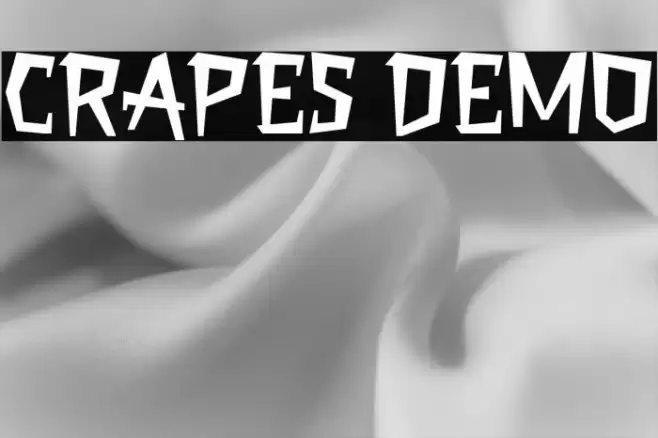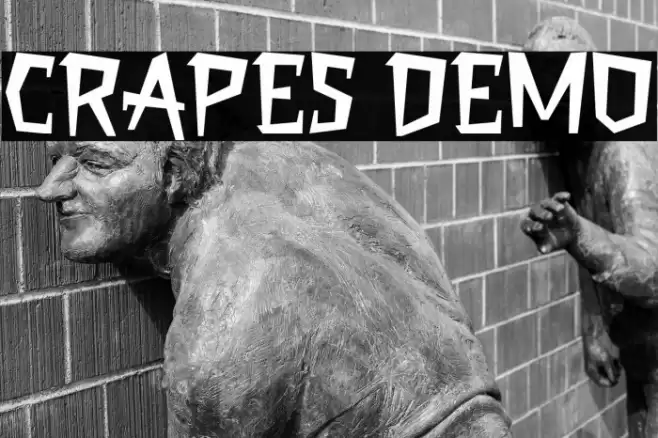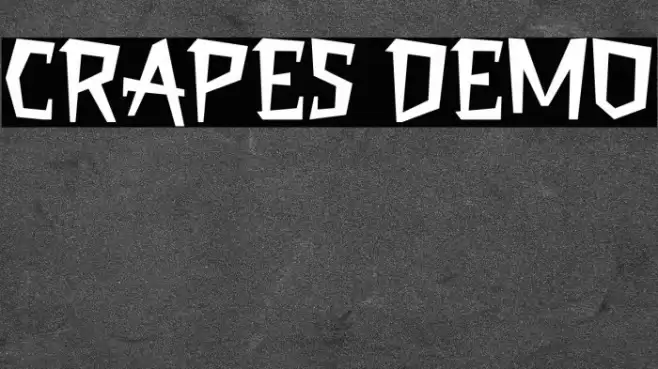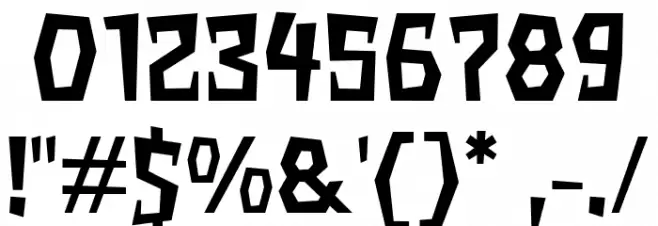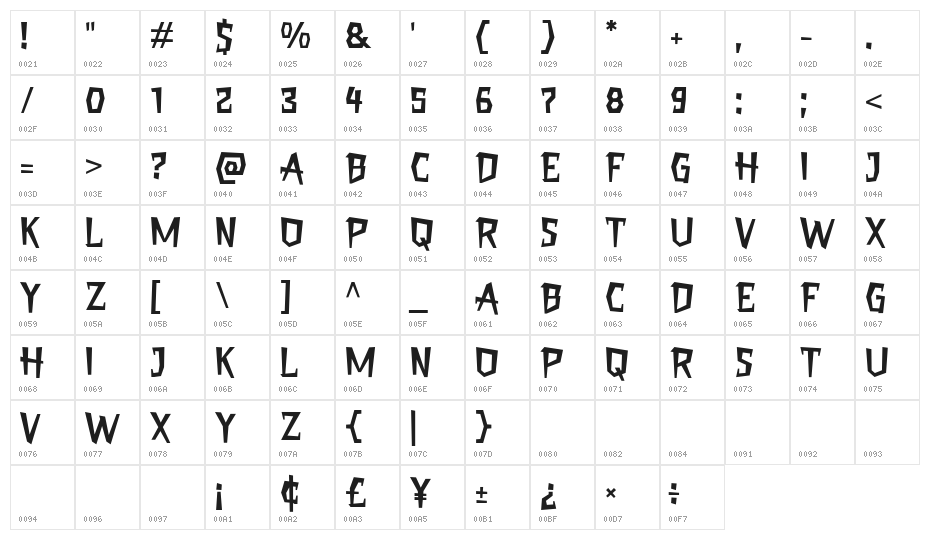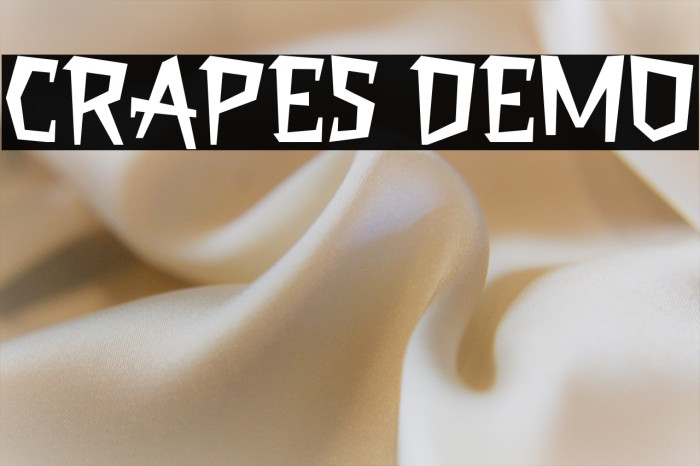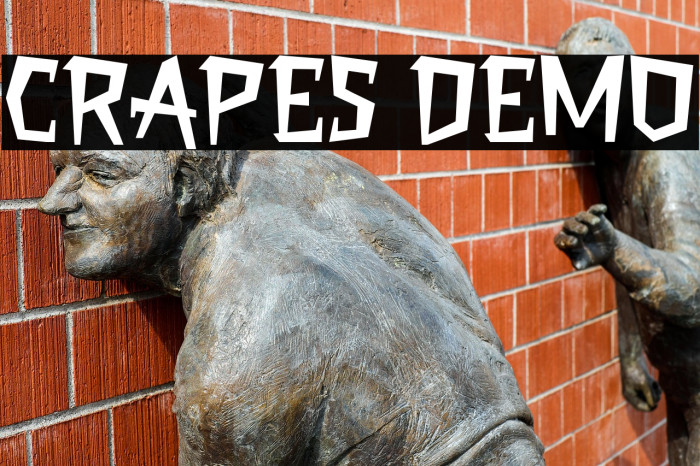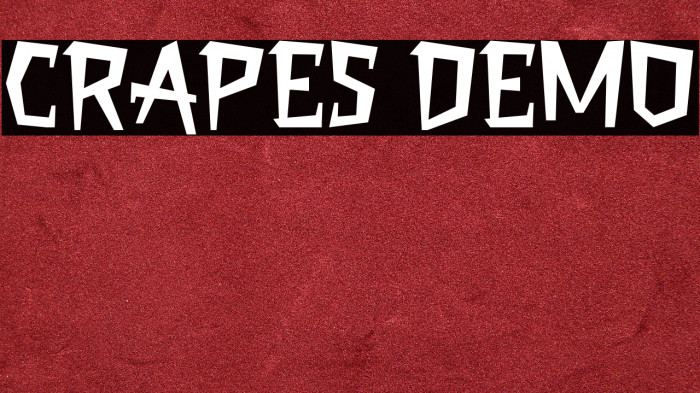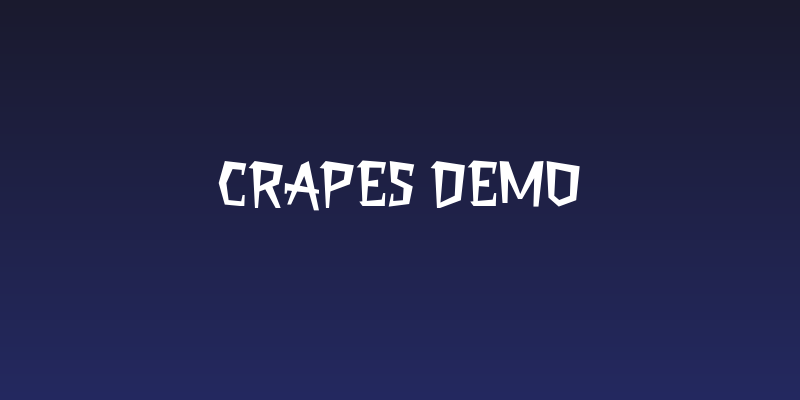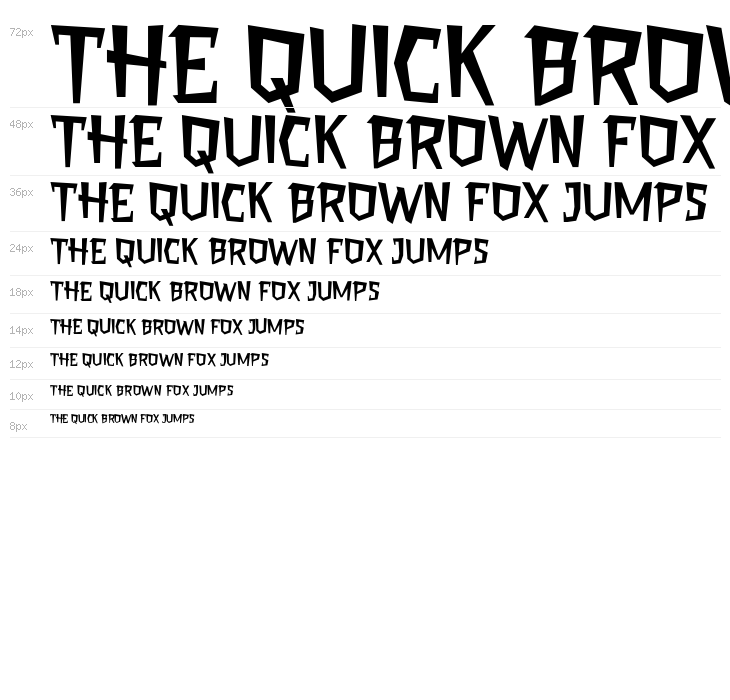
Crapes Demo Font
Crapes Demo Description
This font features a bold and dynamic design with sharp, angular edges that give it a striking and edgy appearance. The characters are slightly irregular, adding a sense of movement and energy. The uppercase and lowercase letters maintain a consistent style, with the uppercase being more prominent and commanding. Numbers and special characters follow the same angular theme, ensuring uniformity across the font. This font is ideal for projects that require a bold statement or a modern, rebellious touch.
A bold, angular font with a dynamic and edgy style from Uncategorized fonts.
- Proposed Projects: Ideal for posters, album covers, branding for edgy products, or any design needing a bold, modern statement.
- Overall Style: Modern, Edgy